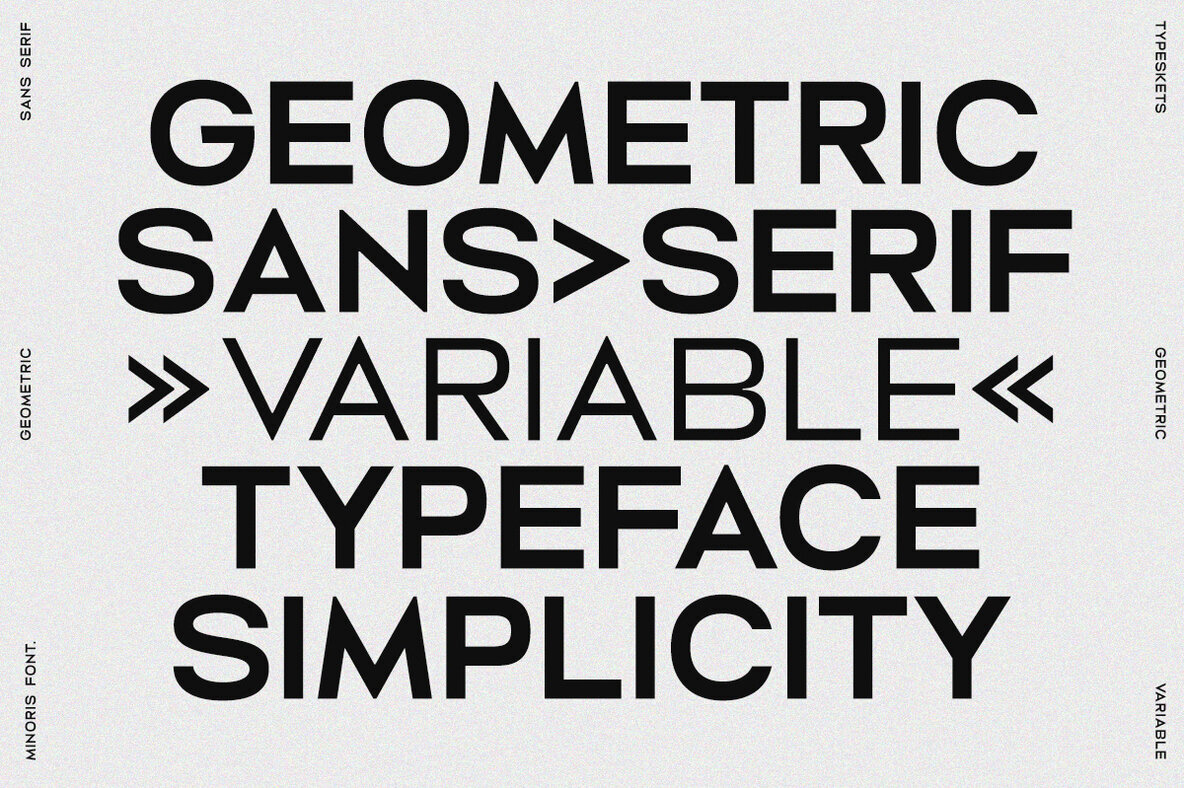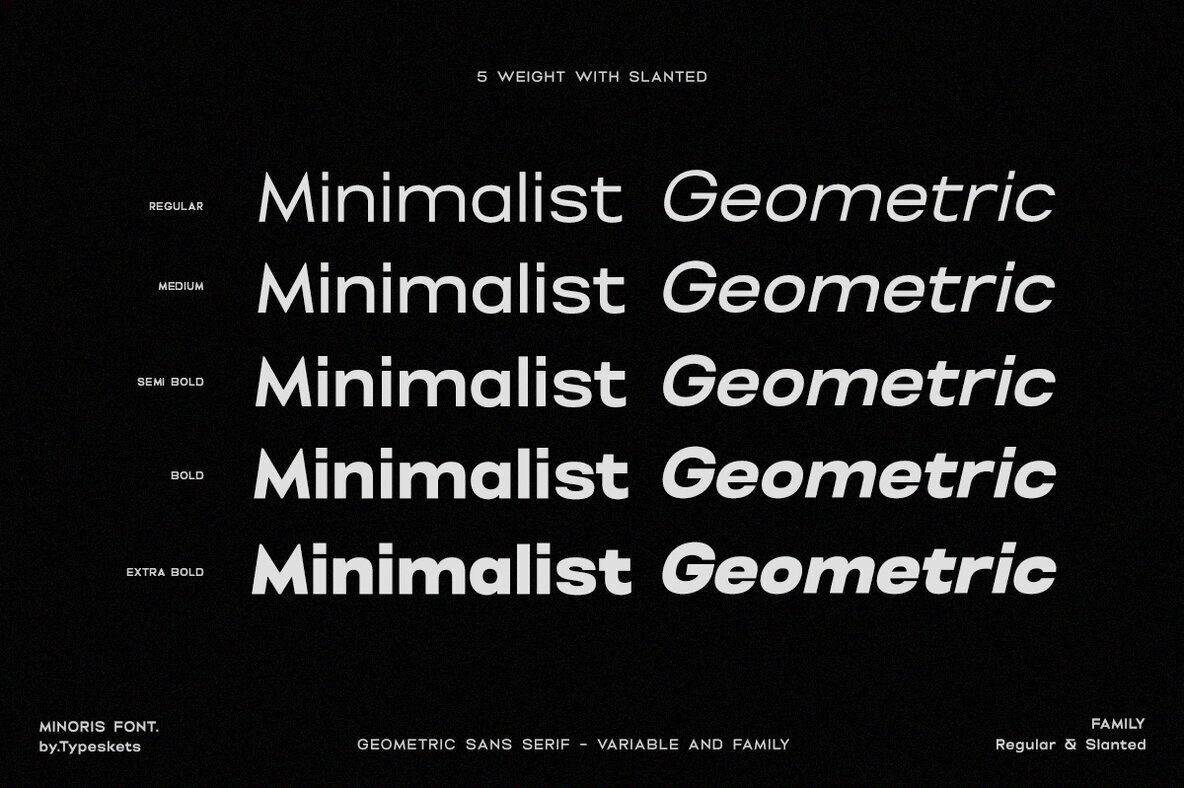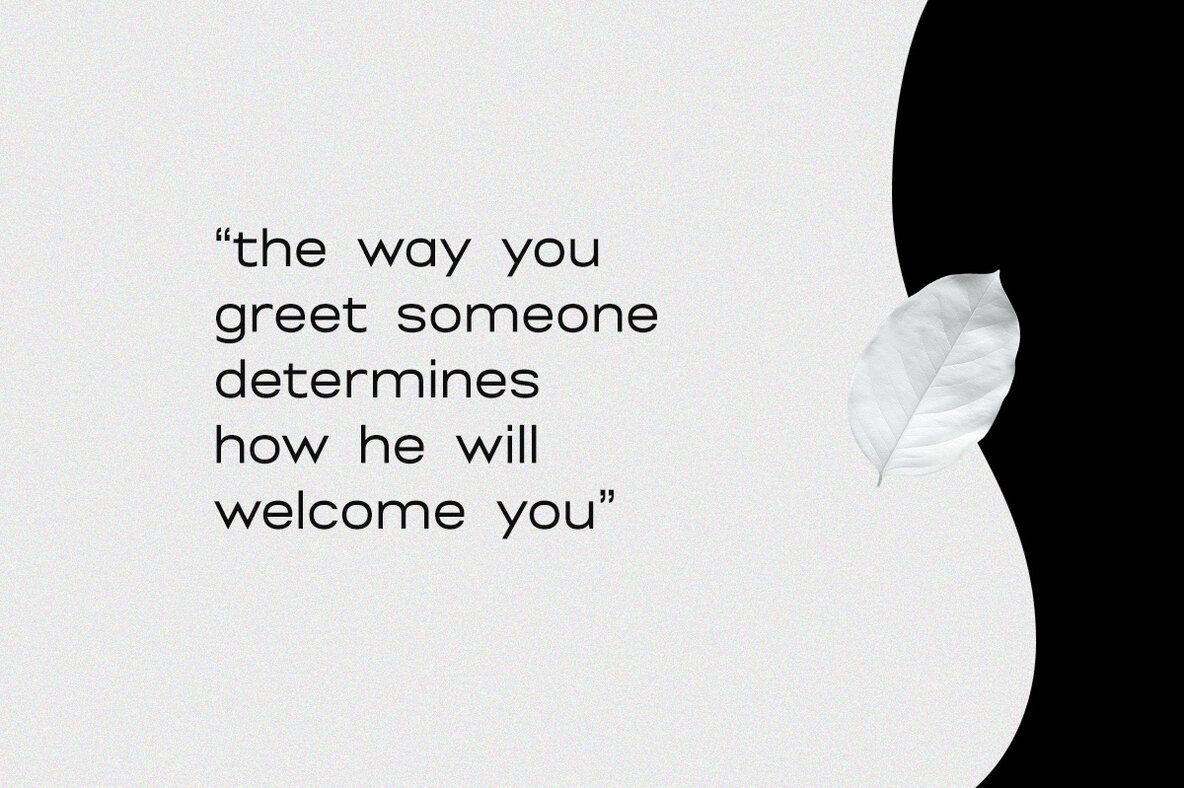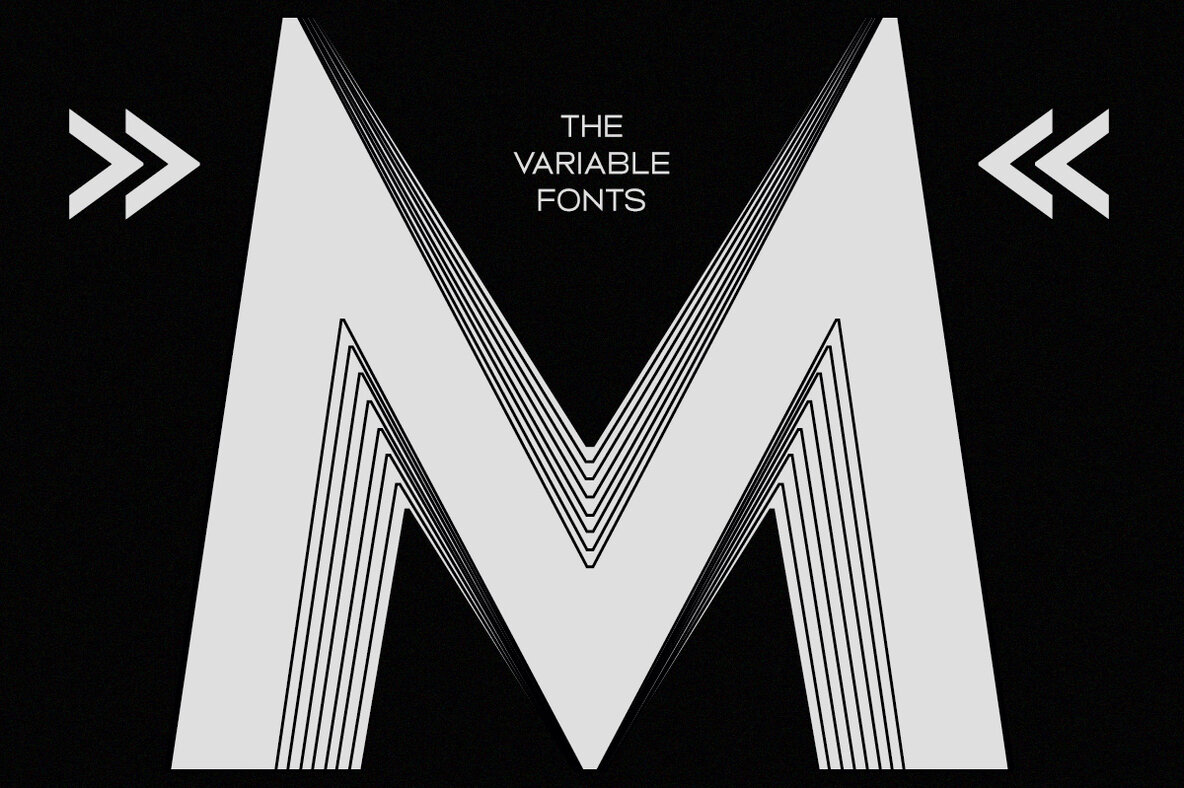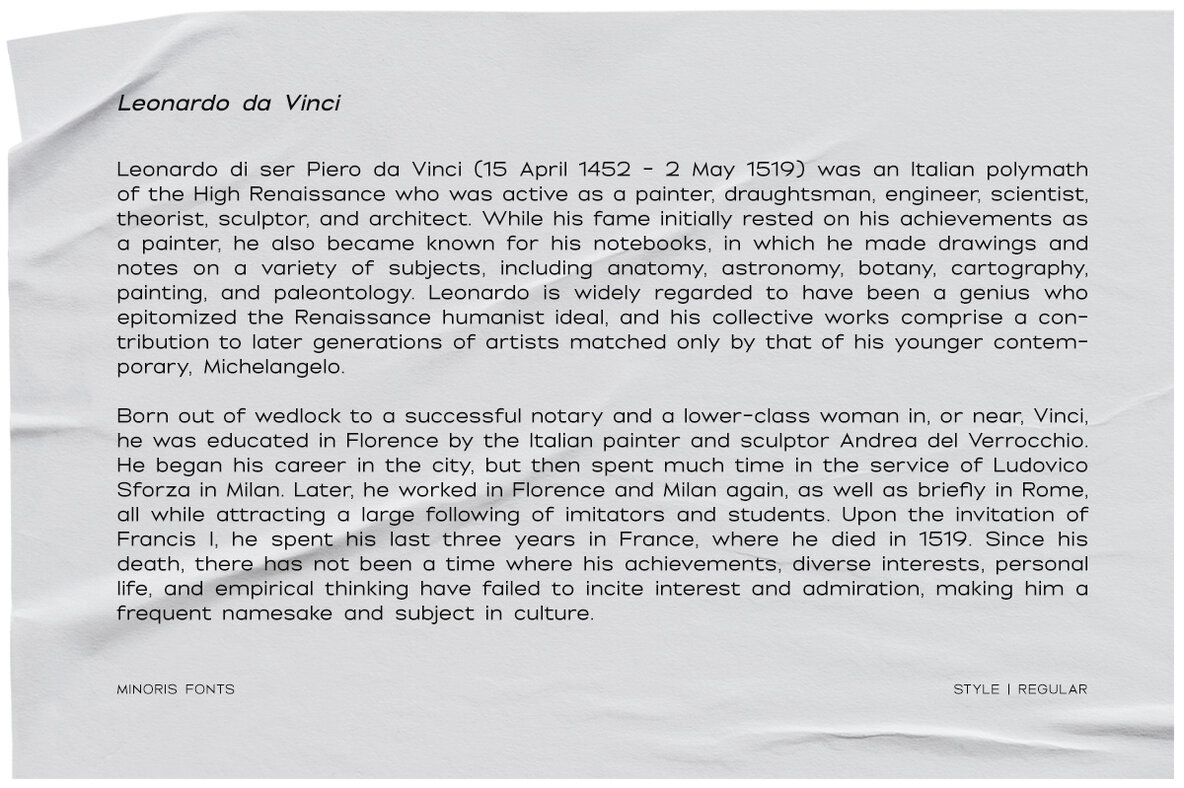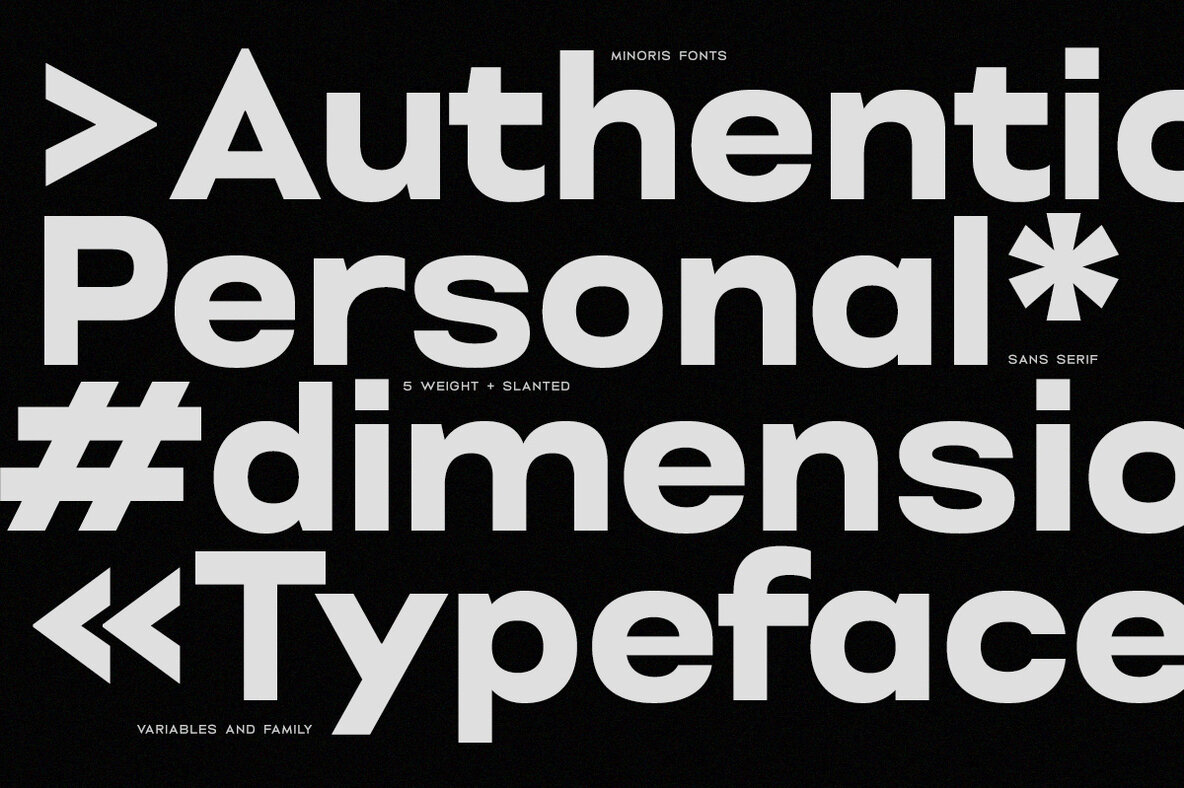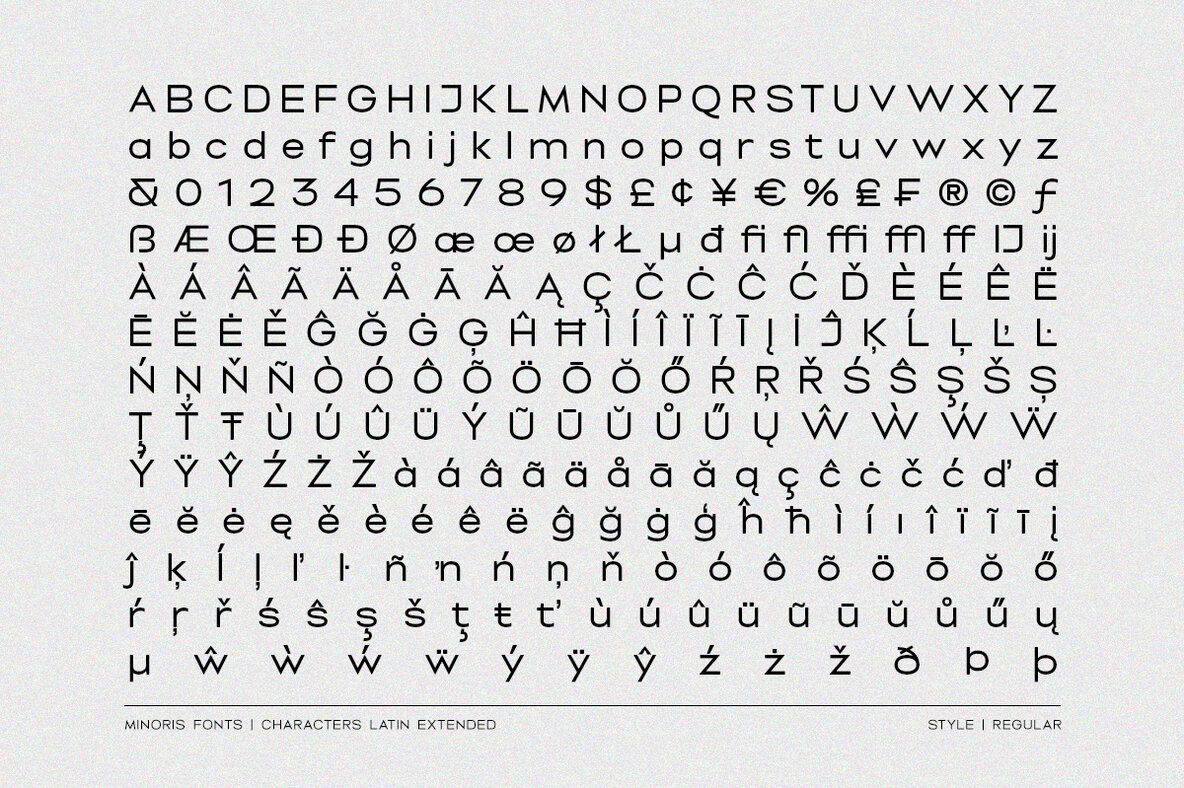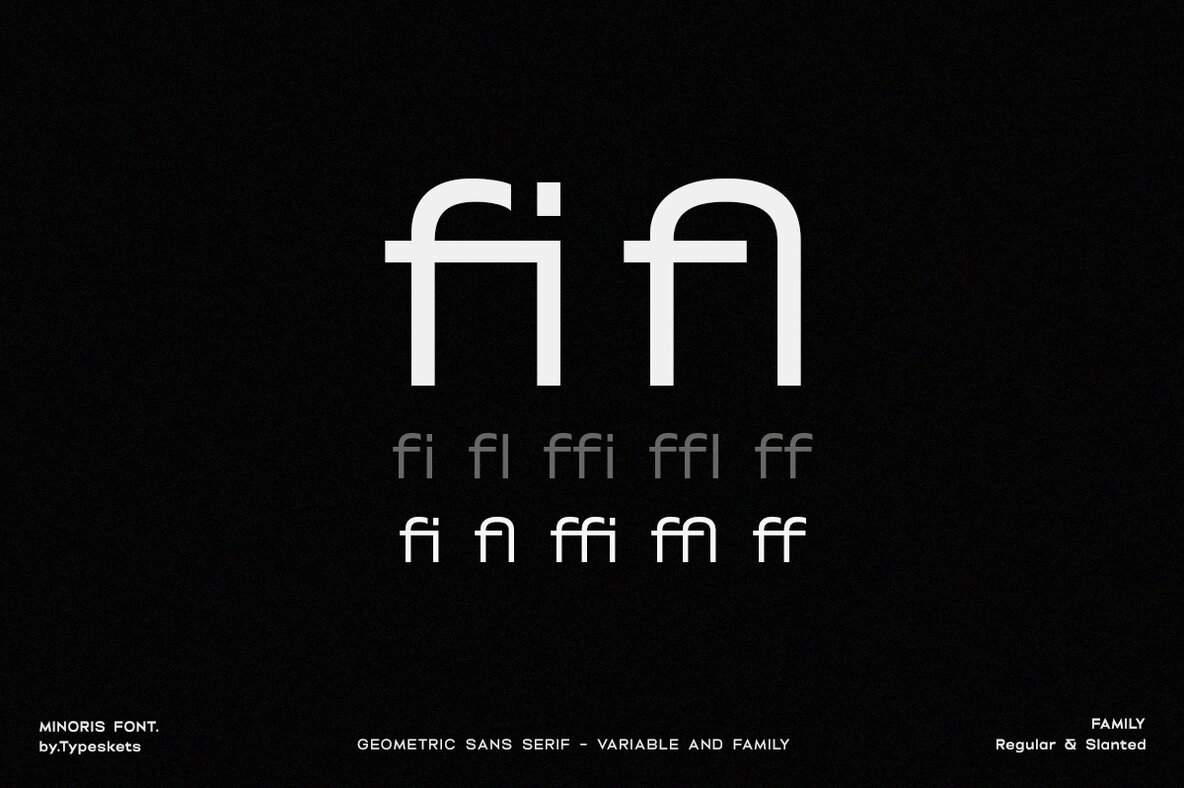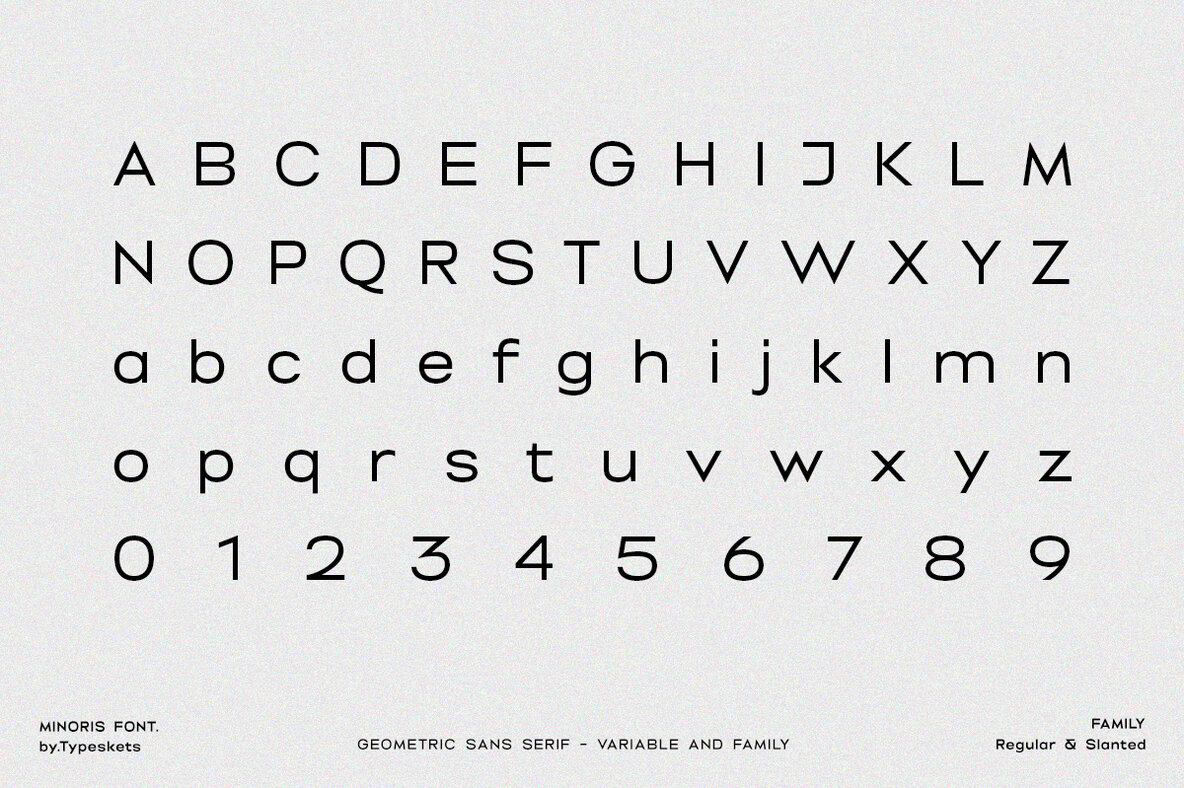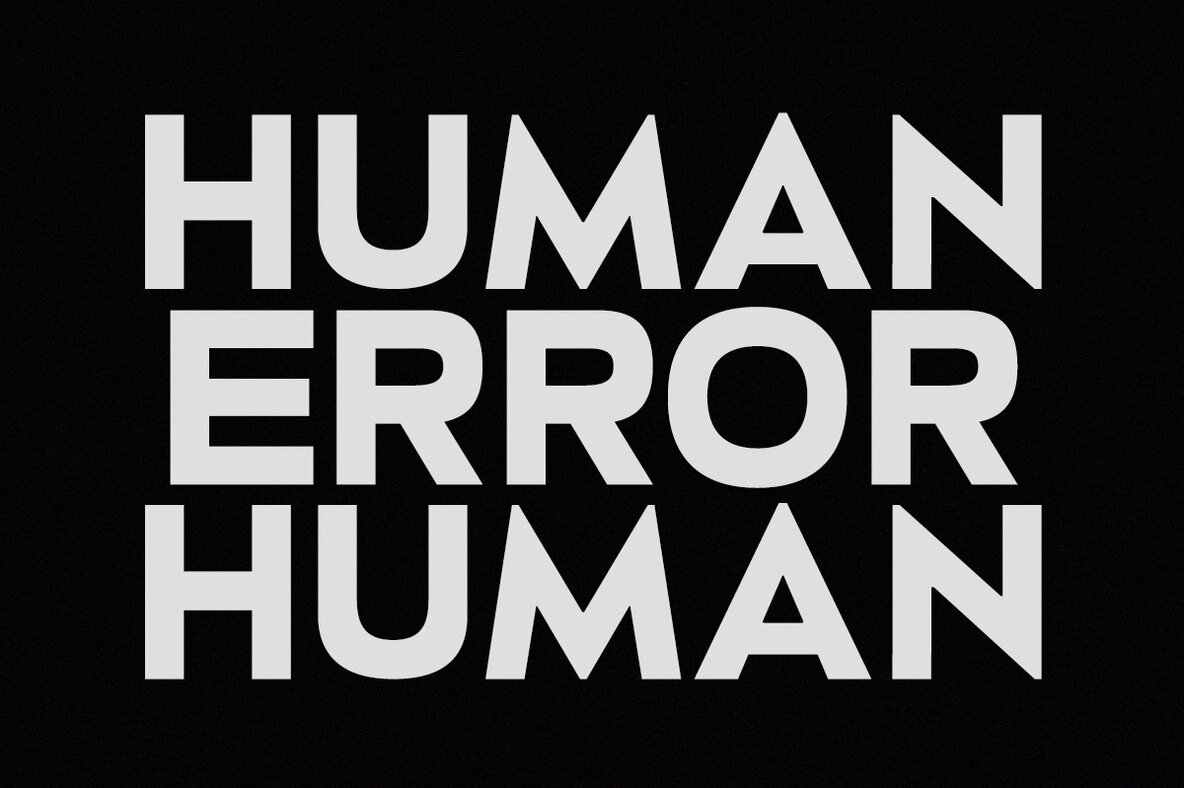
Minoris Font
Minoris is a sans serif geometric font featuring 10 styles across 5 weights, each with an oblique version. As a variable font, Minoris offers customizable weight adjustments through compatible software, such as Adobe applications. Its design stems from carefully crafted geometric shapes, offering a minimalist and clean aesthetic that enhances editorial projects.
This versatile typeface is ideal for various applications, including typography design, posters, logotypes, and more. The geometric construct of each character delivers a modern and simplified look, perfect for designers seeking a contemporary touch. Minoris also supports Latin Extended character accents, broadening its application for diverse languages and design needs.